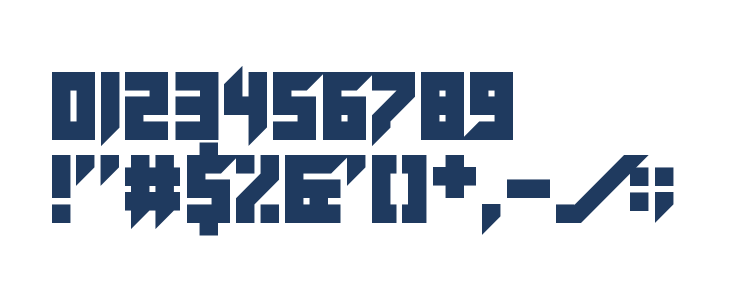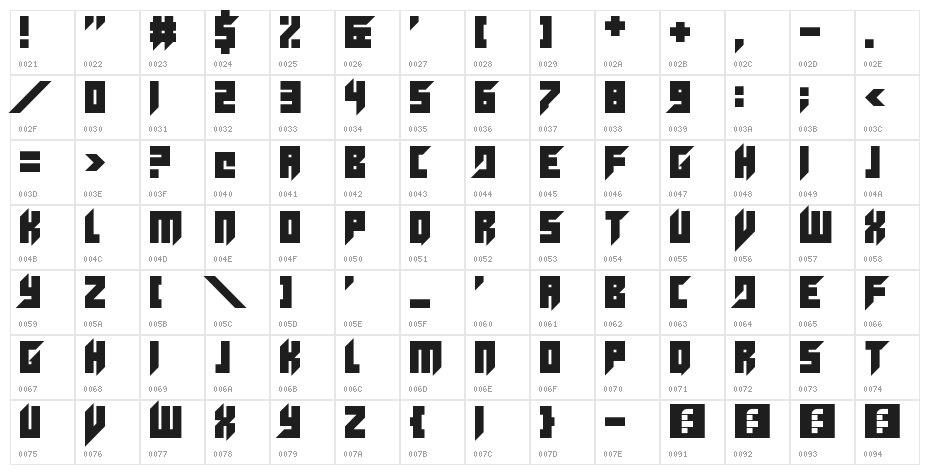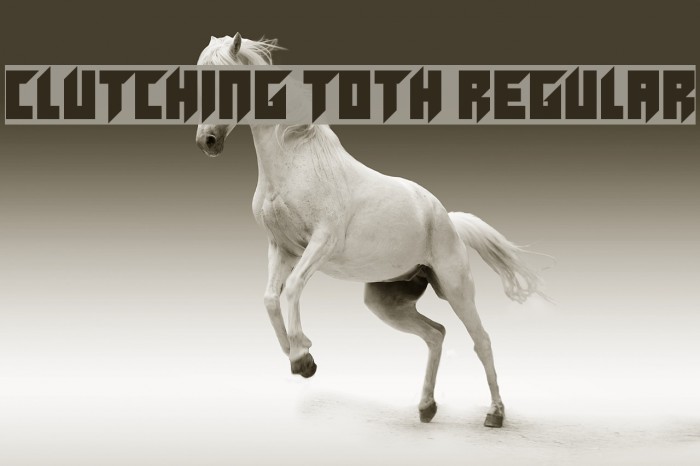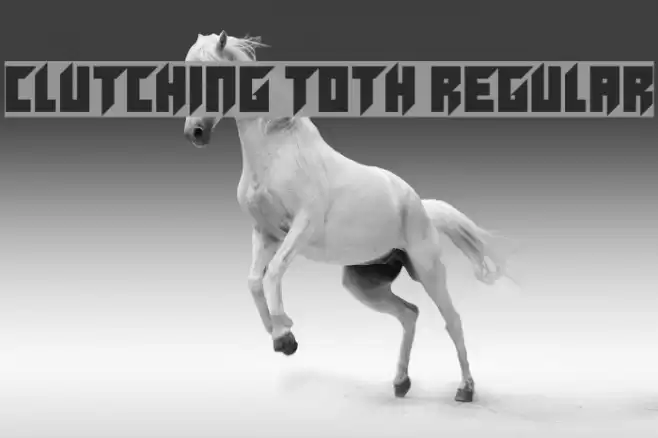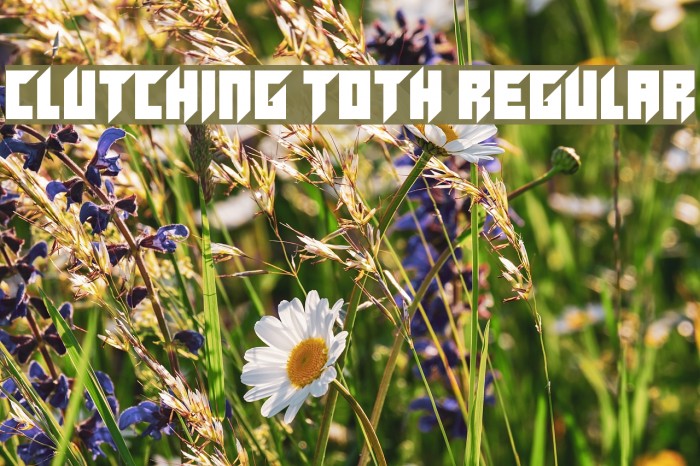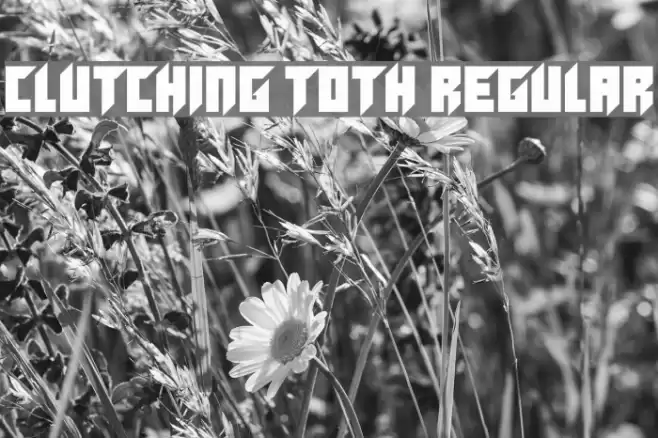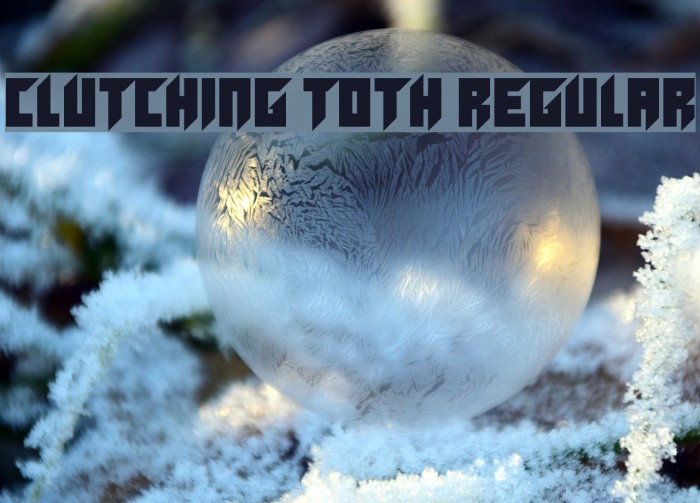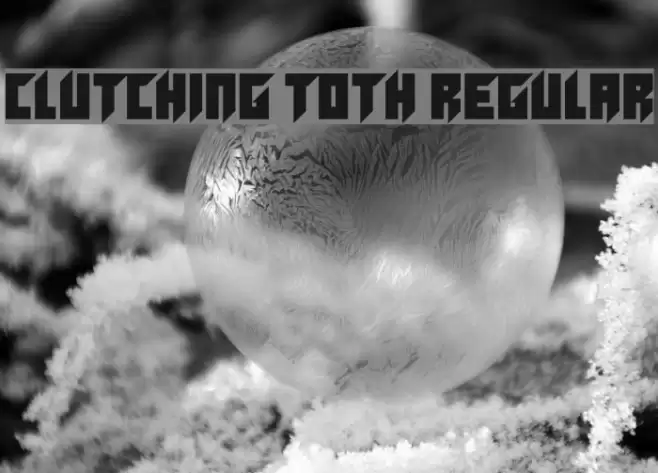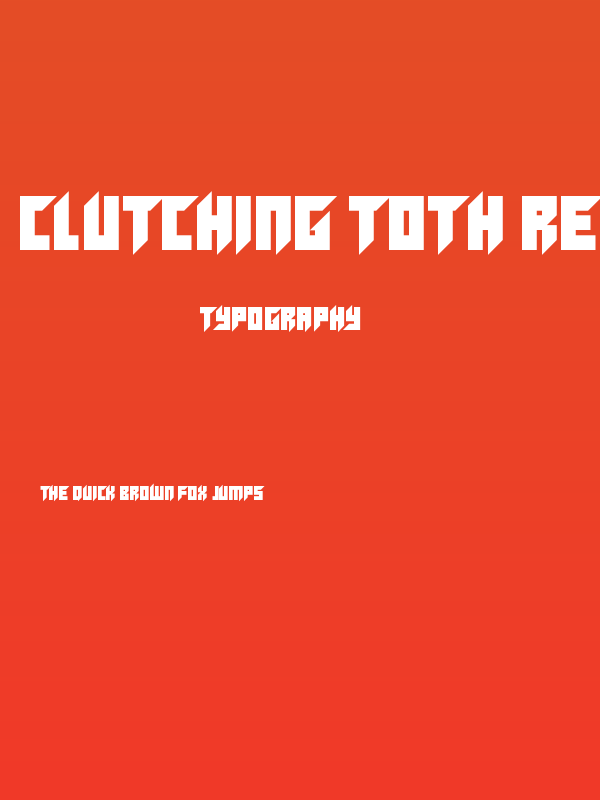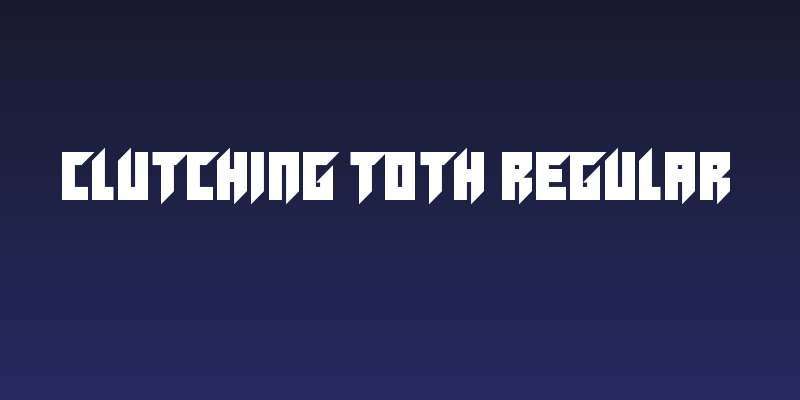
Clutching Toth Regular Font
Clutching Toth Regular Description
This font features a bold and angular design, characterized by sharp edges and geometric shapes. The uppercase and lowercase letters maintain a consistent style, with a strong emphasis on vertical and horizontal lines. The numbers and special characters follow the same angular theme, providing a cohesive look across all characters. The font's distinct style makes it stand out, offering a modern and edgy appearance suitable for attention-grabbing designs.
| Proposed Projects | Ideal for posters, logos, video game graphics, and branding materials that require a modern and striking appearance. |